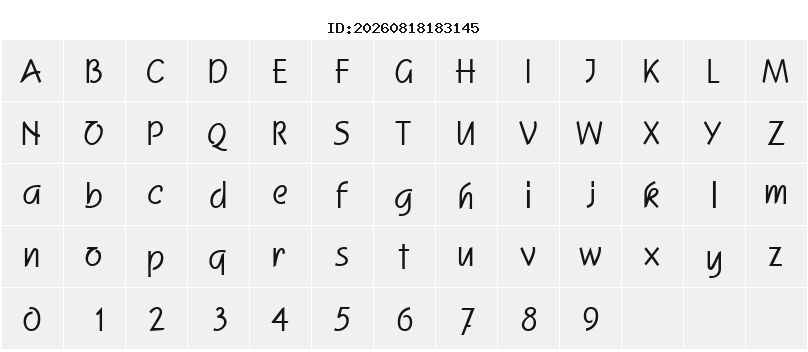
• Font Name: SkizzeDB
• Full Font Name: SkizzeDB Bold
SkizzeDB.ttf is a modern, elegant sans-serif font designed for ultimate readability and visual harmony. Perfect for branding, headlines, web design, and print materials.